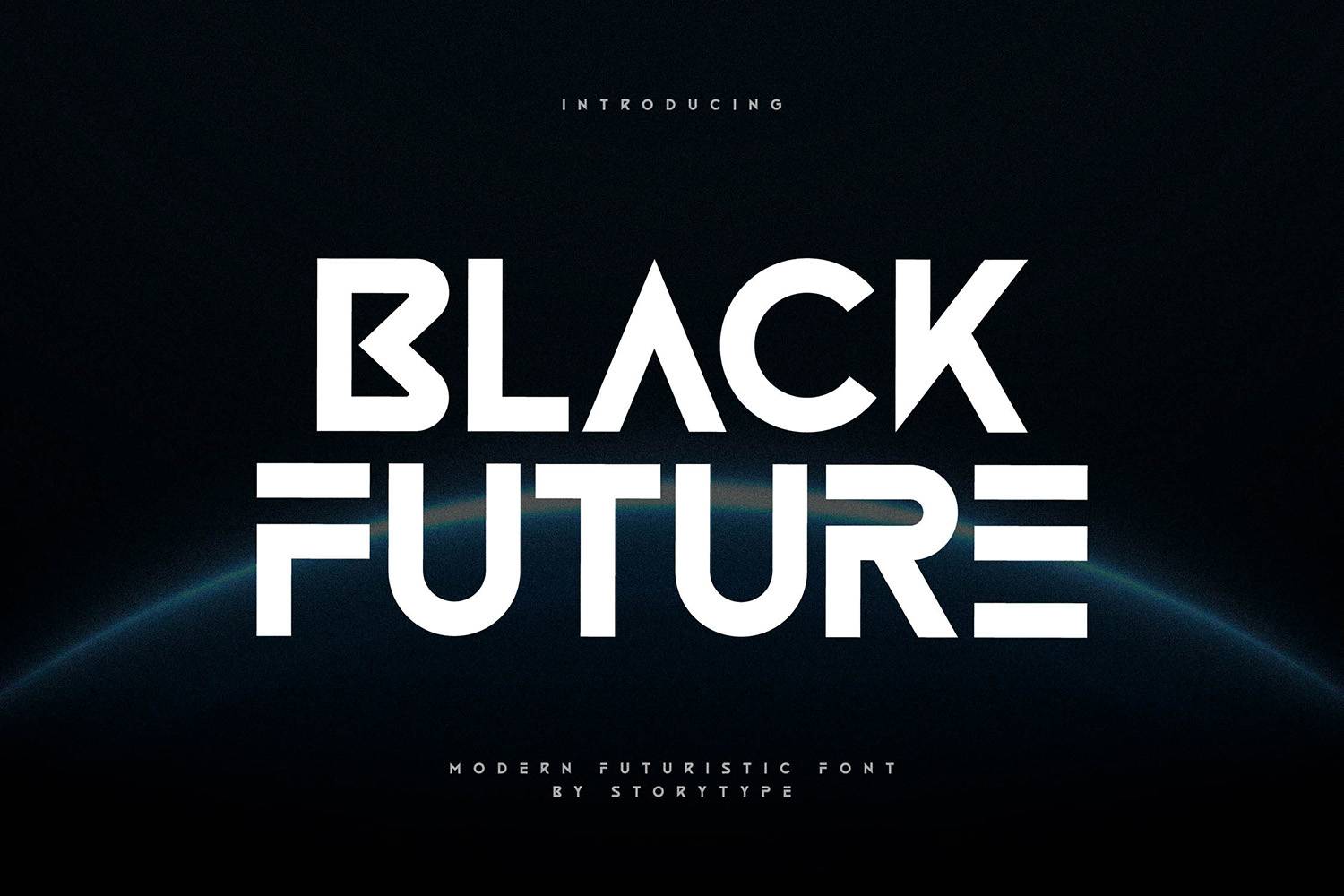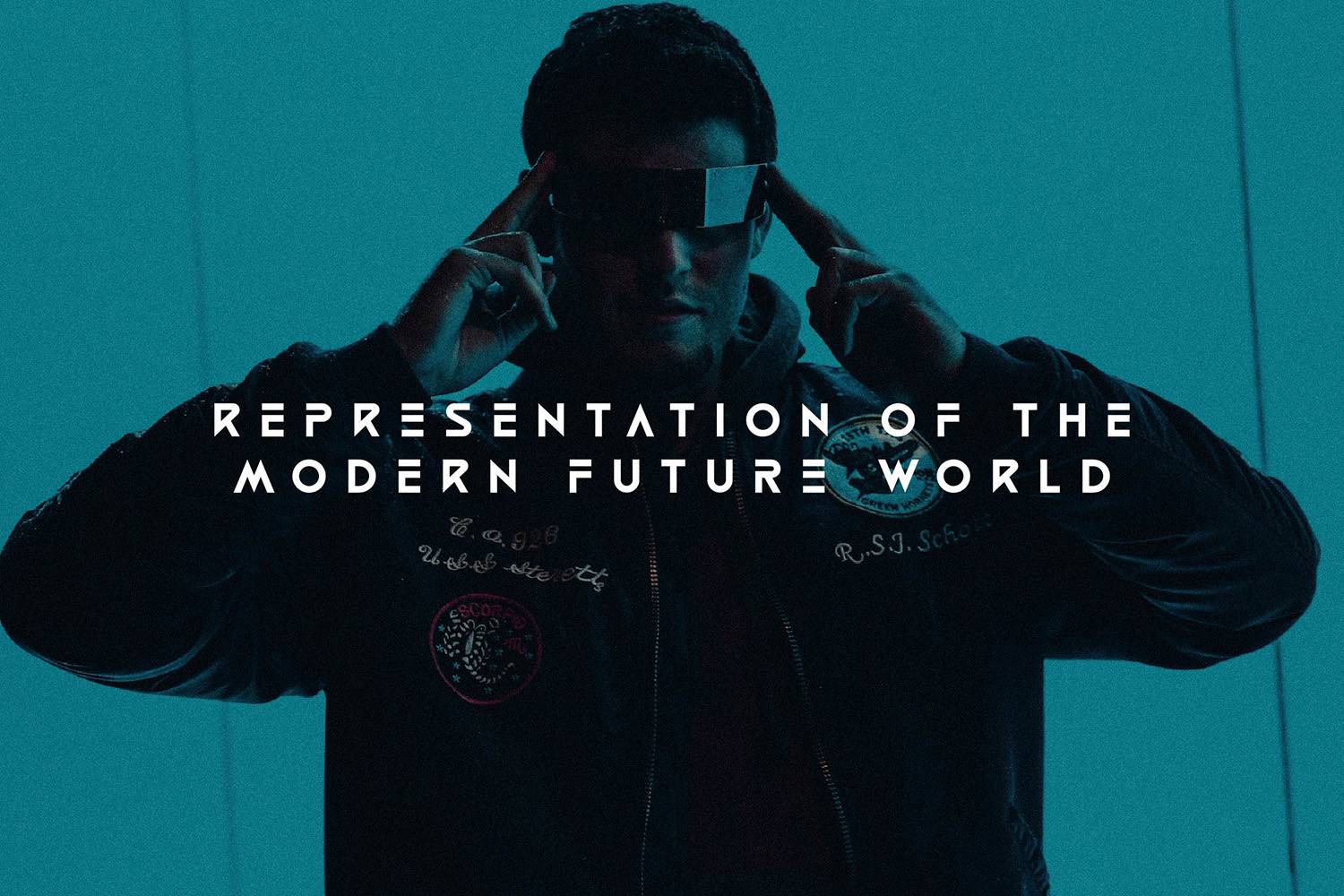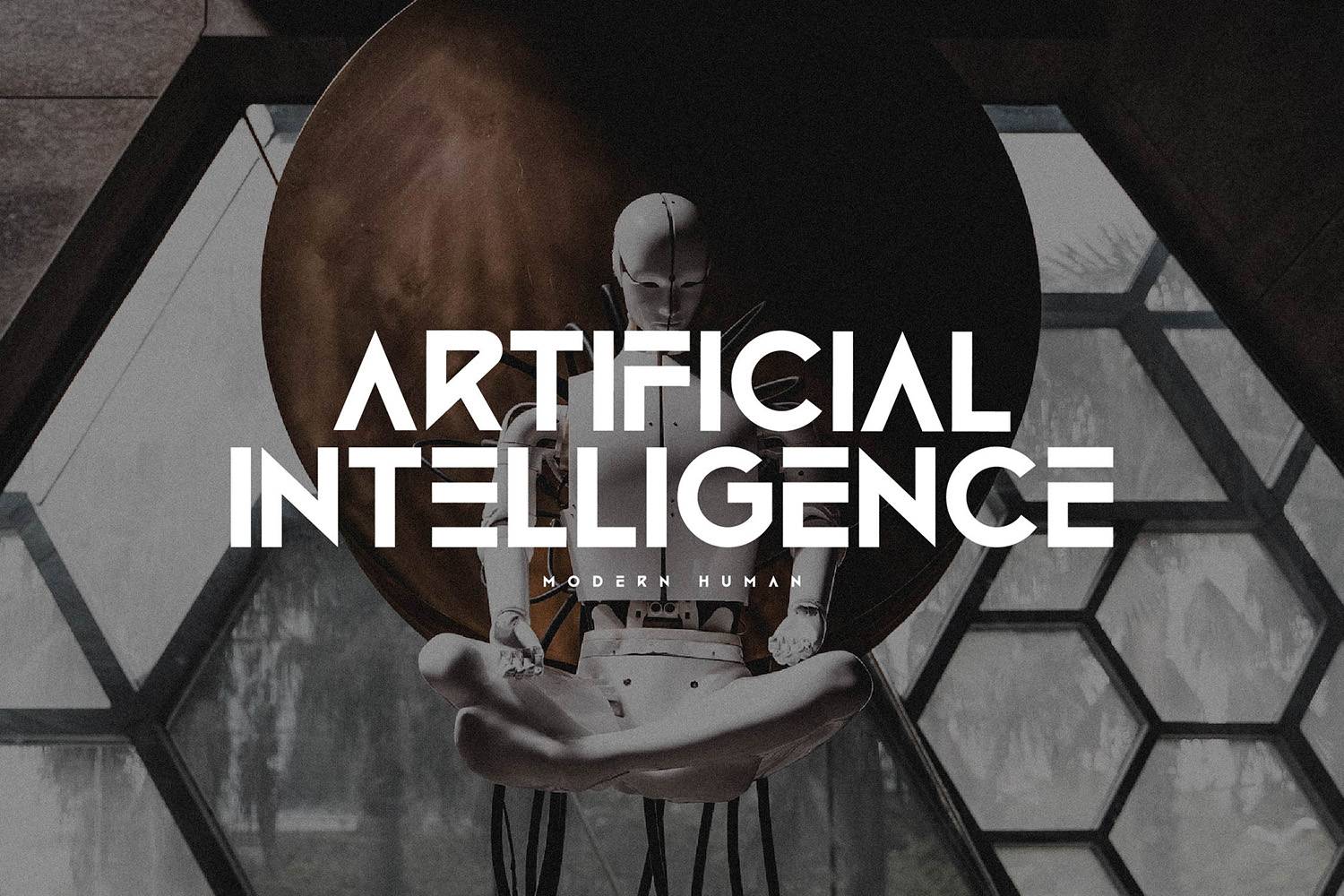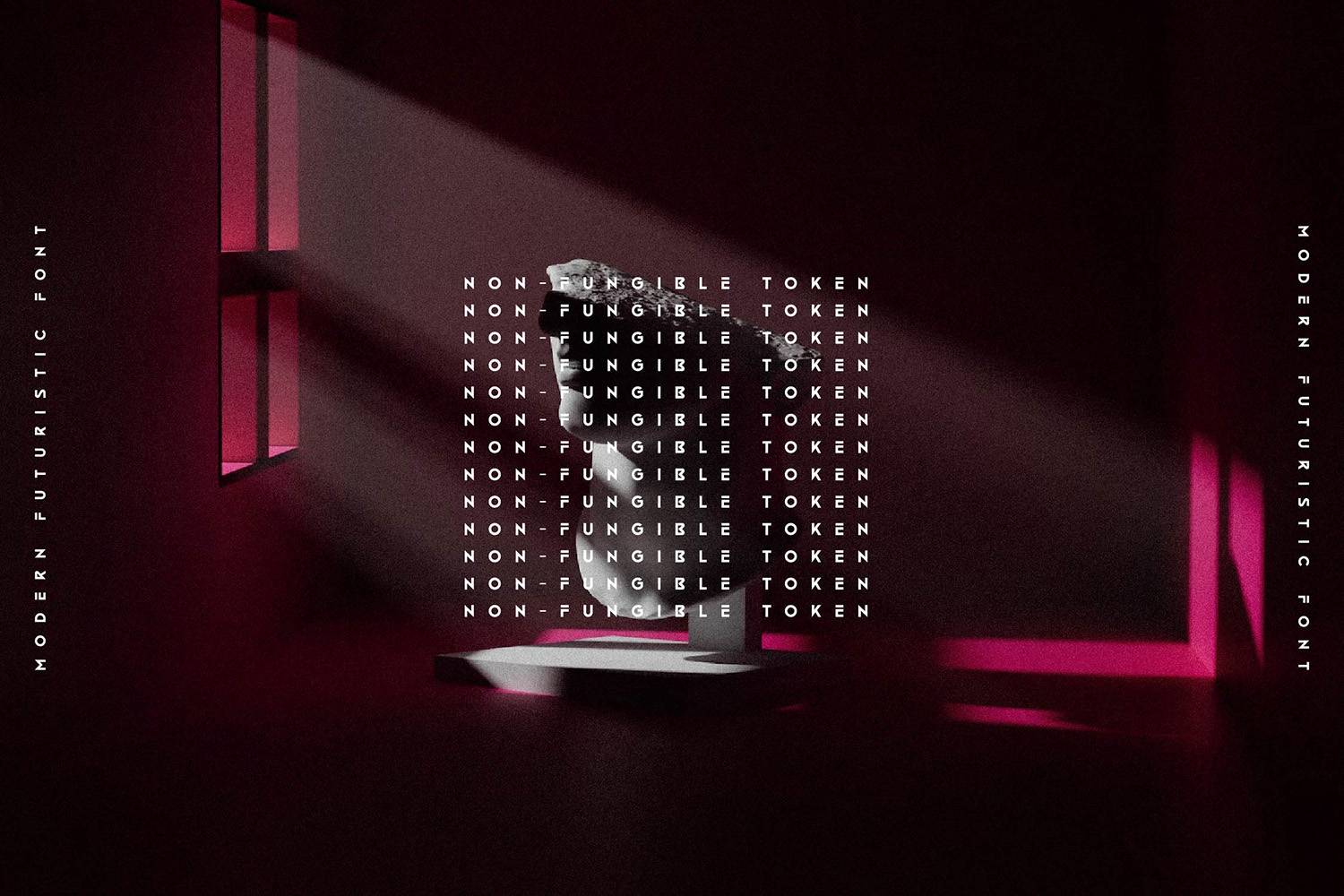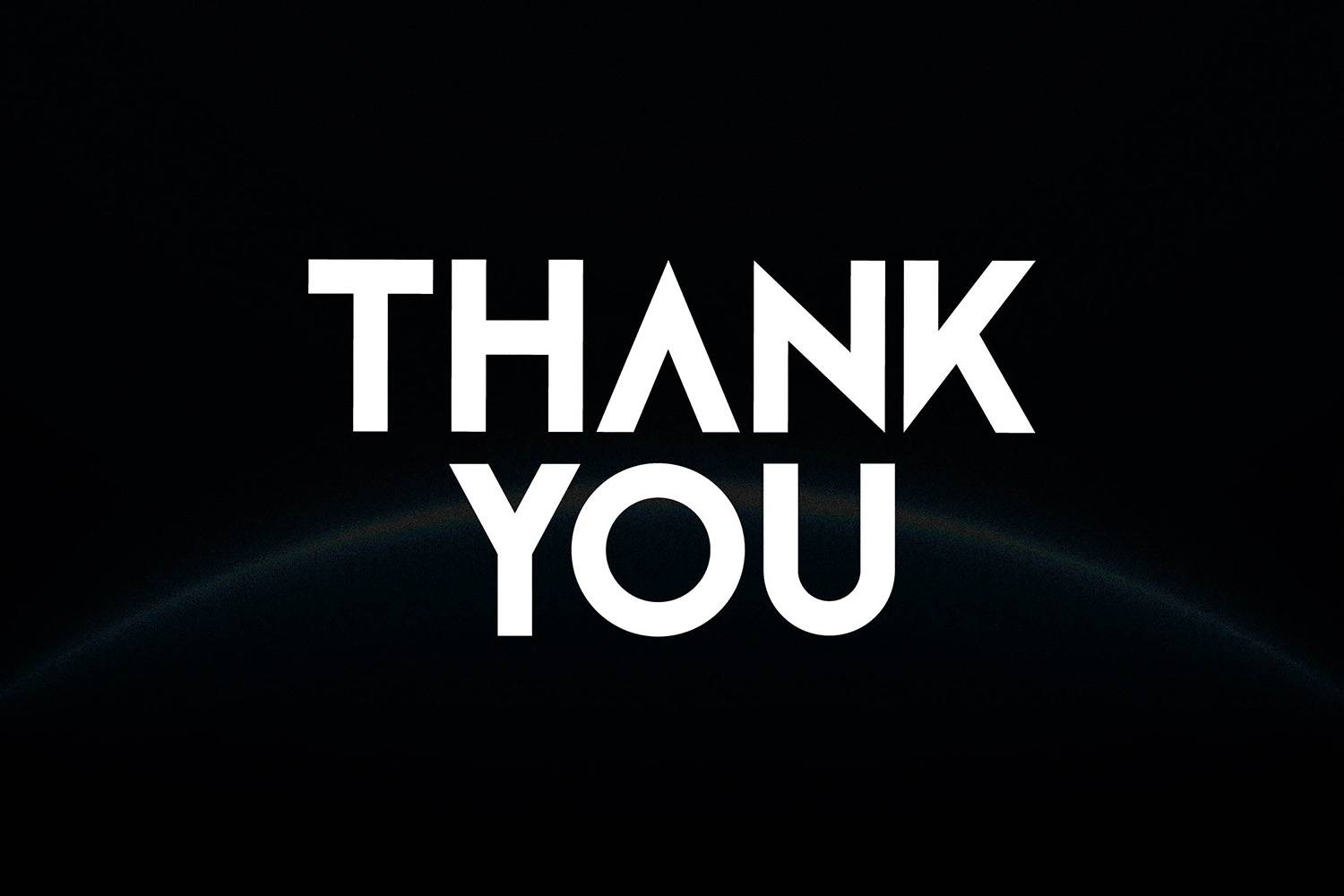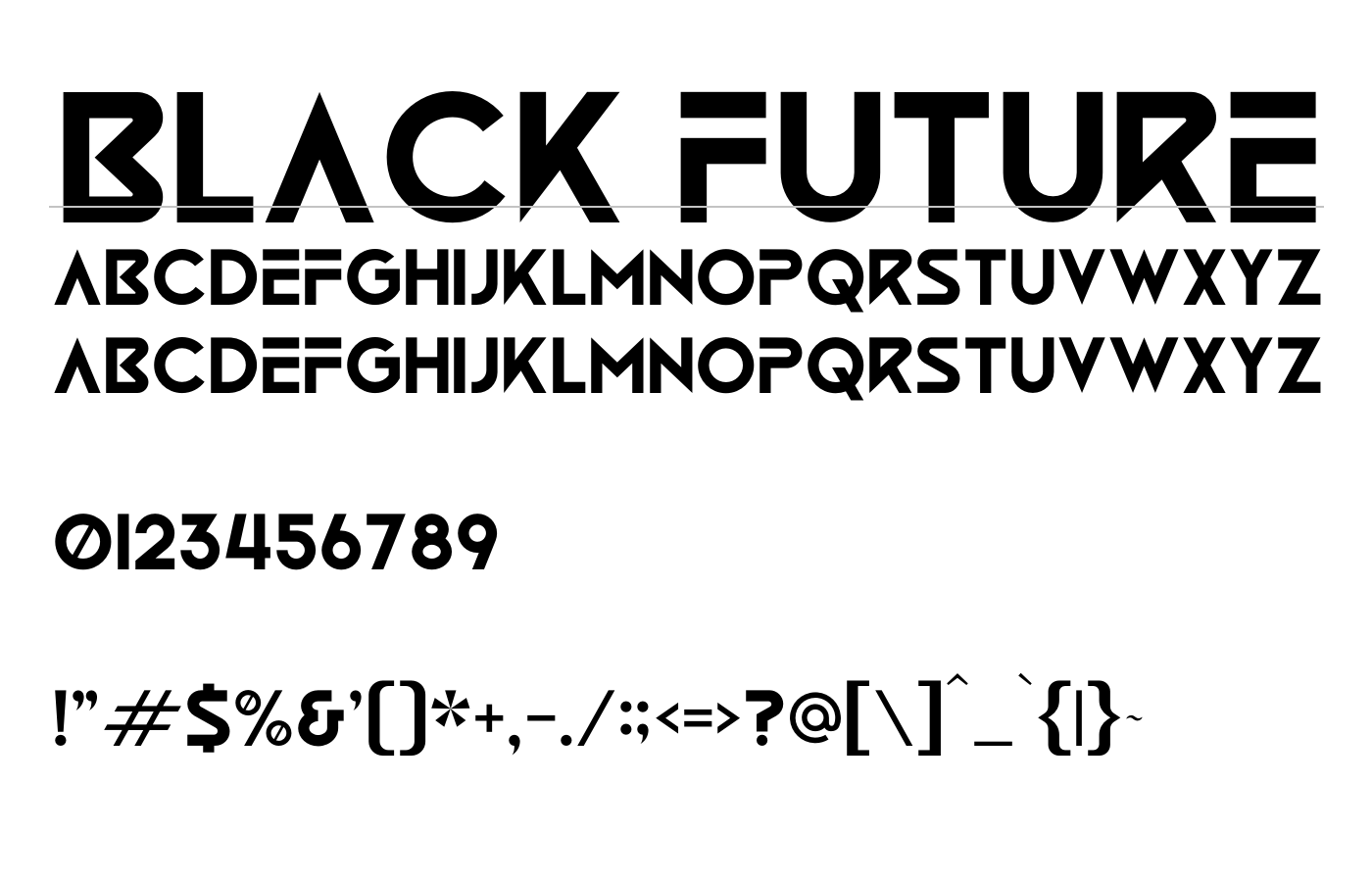
Black Future is a bold, geometric sans serif font with a striking futuristic vibe, featuring sharp angles and unique letterforms that give it a dynamic, tech-inspired personality. Its strong weight, condensed width, and consistent stroke contrast make it ideal for impactful headlines, logos, and modern design projects that want to convey innovation and strength. This font works best in branding and display contexts where a cutting-edge, forward-looking style is desired.
Black Future Font
About Black Future Font